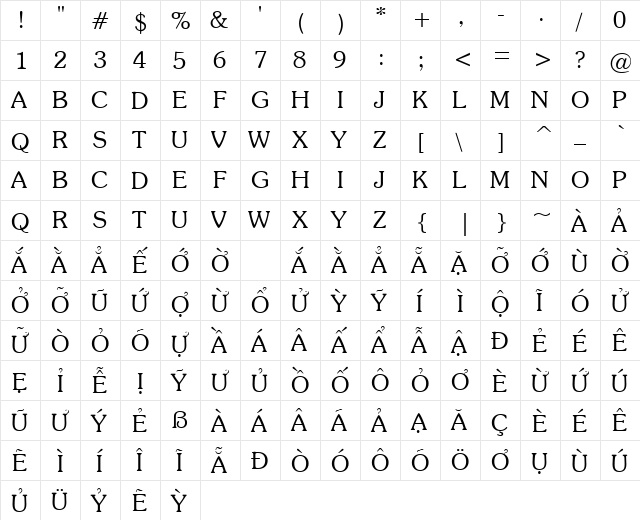
VPS Truong Sa Light Hoa Light
Design Context for VPS Truong Sa Light Hoa Typeface
VPS Truong Sa Light Hoa takes a measured approach to typography — its balanced proportions and neutral character make it a reliable workhorse for both digital and print work. Its slender proportions lend an understated elegance to any composition.